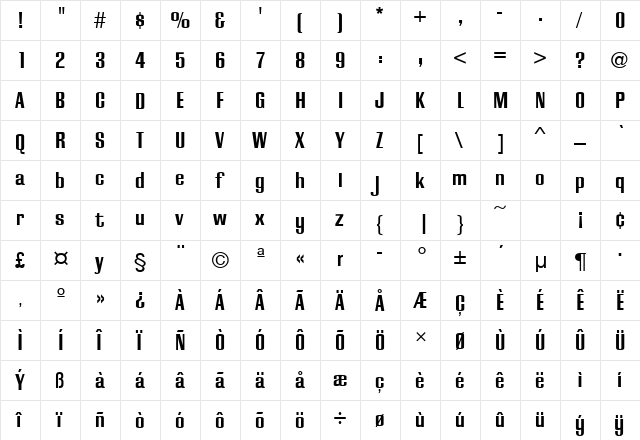
CaliforniaGroURWTBol Regular Font Preview
CaliforniaGroURWTBol Regular
Design Context for CaliforniaGroURWTBol Typeface
CaliforniaGroURWTBol takes a measured approach to typography — its balanced proportions and neutral character make it a reliable workhorse for both digital and print work.